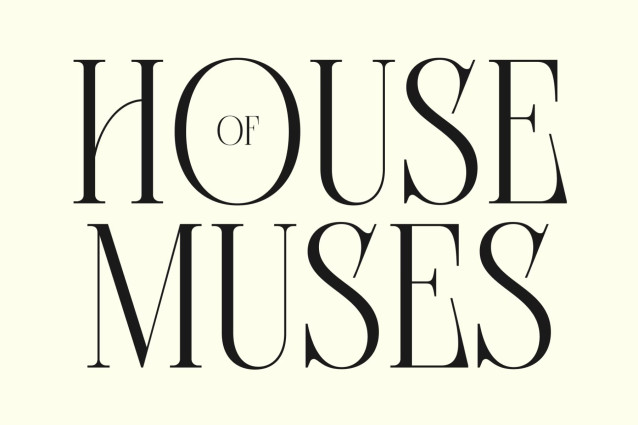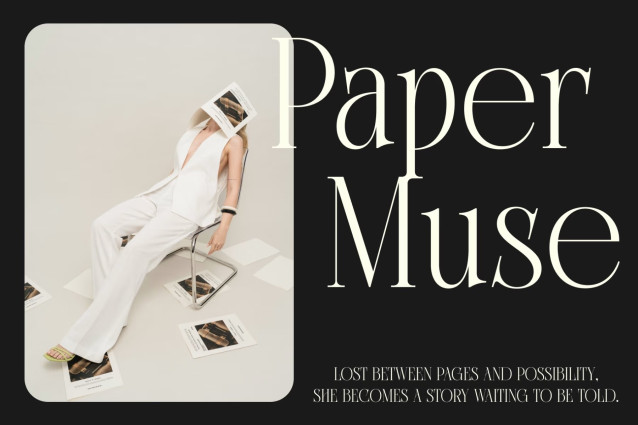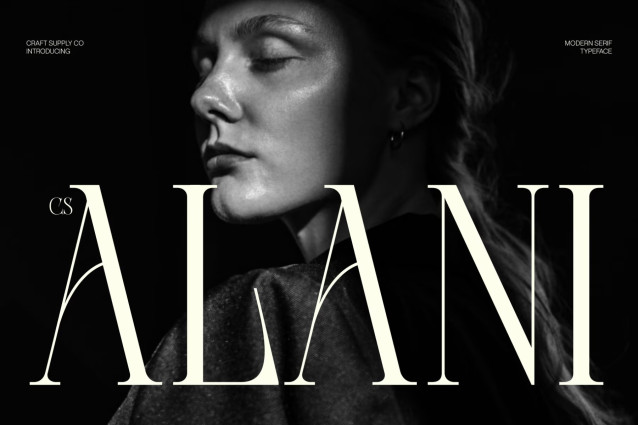
CS Alani – Modern Serif Font
CS Alani – Modern Serif Font: Where Slim Elegance Meets Contemporary Sophistication
Sharp Angles with Graceful Proportions
This is a modern serif font featuring sharp angles, slim proportions, and elongated serifs that create a sophisticated and contemporary visual identity. Its refined letterforms combine precision with elegance, resulting in typography that feels graceful, professional, and effortlessly luxurious. Every character is carefully crafted to deliver a polished appearance with exceptional visual balance.
Contemporary Style with Timeless Appeal
This font offers a modern interpretation of classic serif typography. Its slender proportions enhance its refined character, while the elongated serifs add a sense of sophistication and distinction. This harmonious combination creates a timeless aesthetic that feels equally at home in editorial layouts and premium branding.